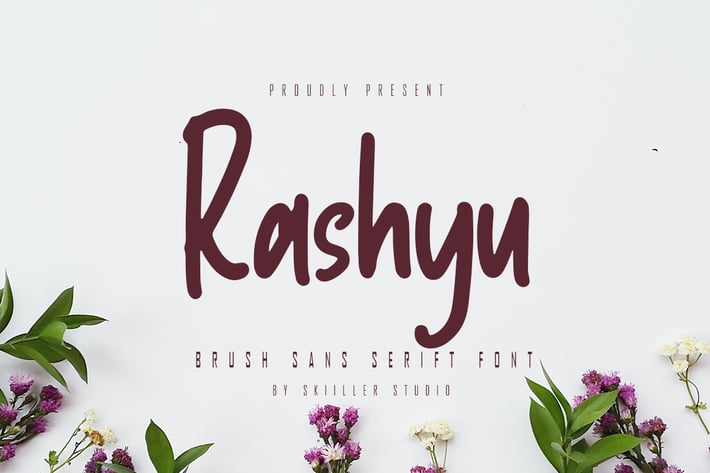
Rashyu - Brush Sans Serif Font
Rashyu is a modern paint sans serif font, crafted to give your headlines and logotype projects a stylish touch. This font reads as strong, confident, and dynamic and can add tons of urban character to your designs.